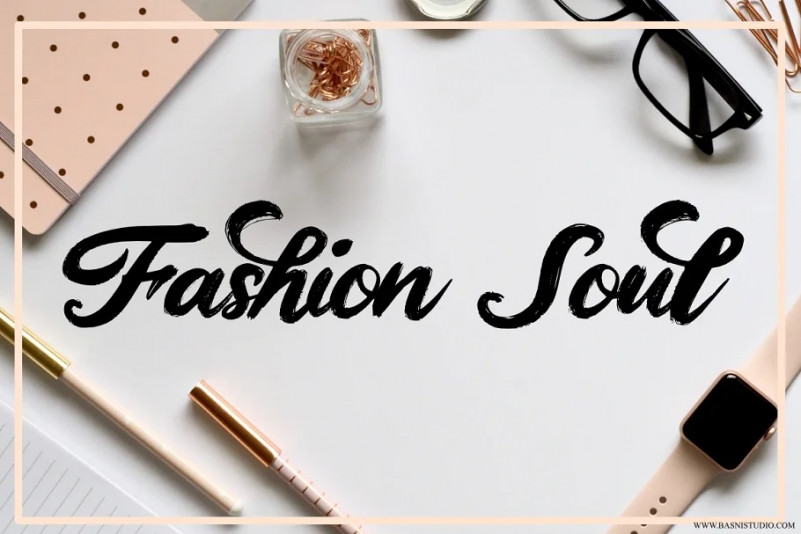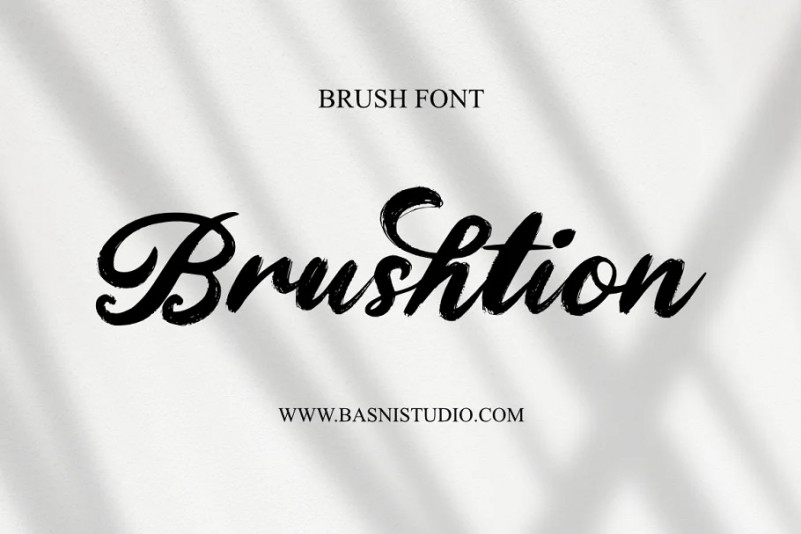
Brushtion Font
Introducing Brushtion Display Font, a Brush font, it’s perfect for branding, website, invitation design and editorial design. Includes all uppercase and lowercase letters, multilingual support and punctuation. everything can be easily accessed by software that supports OpenType.